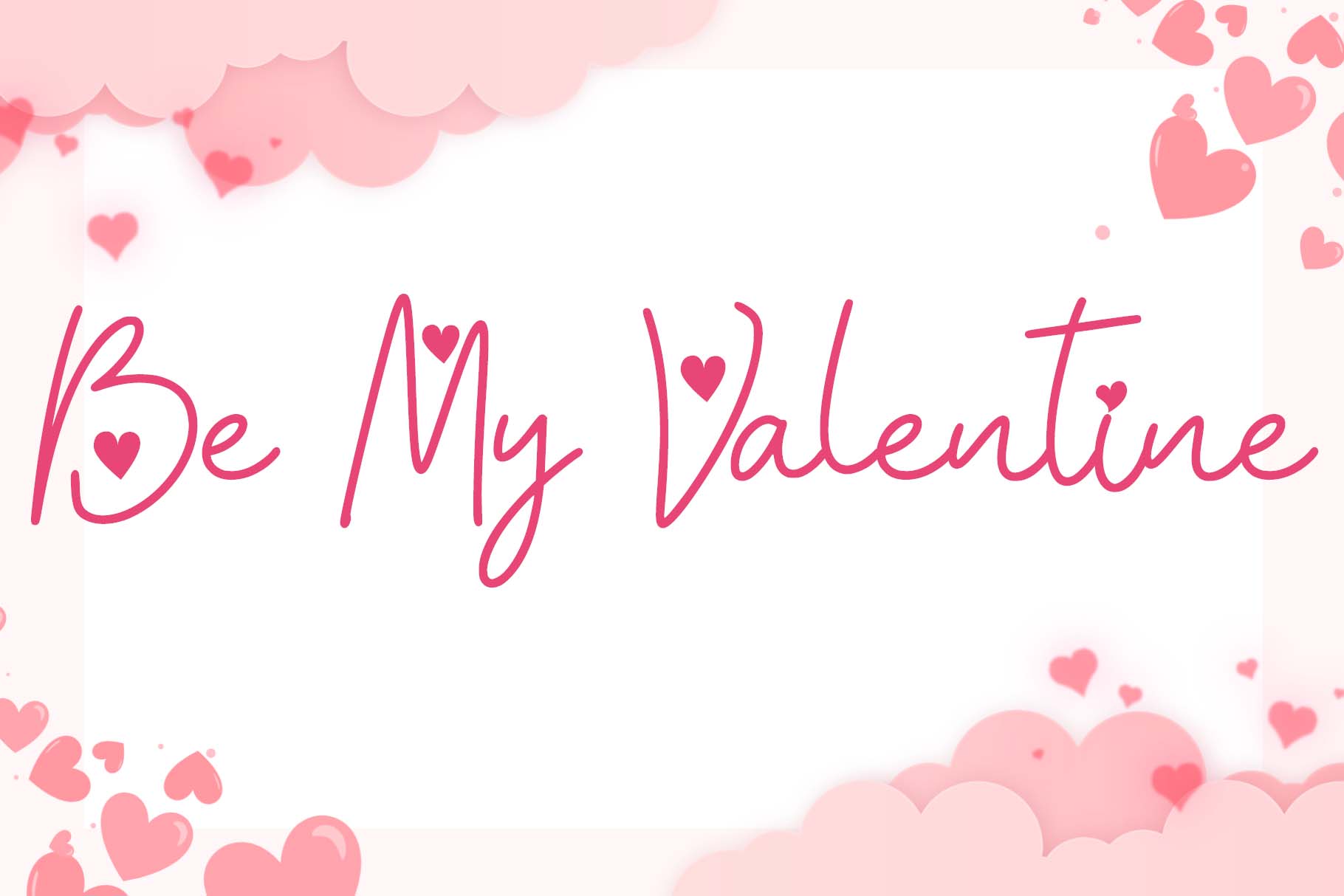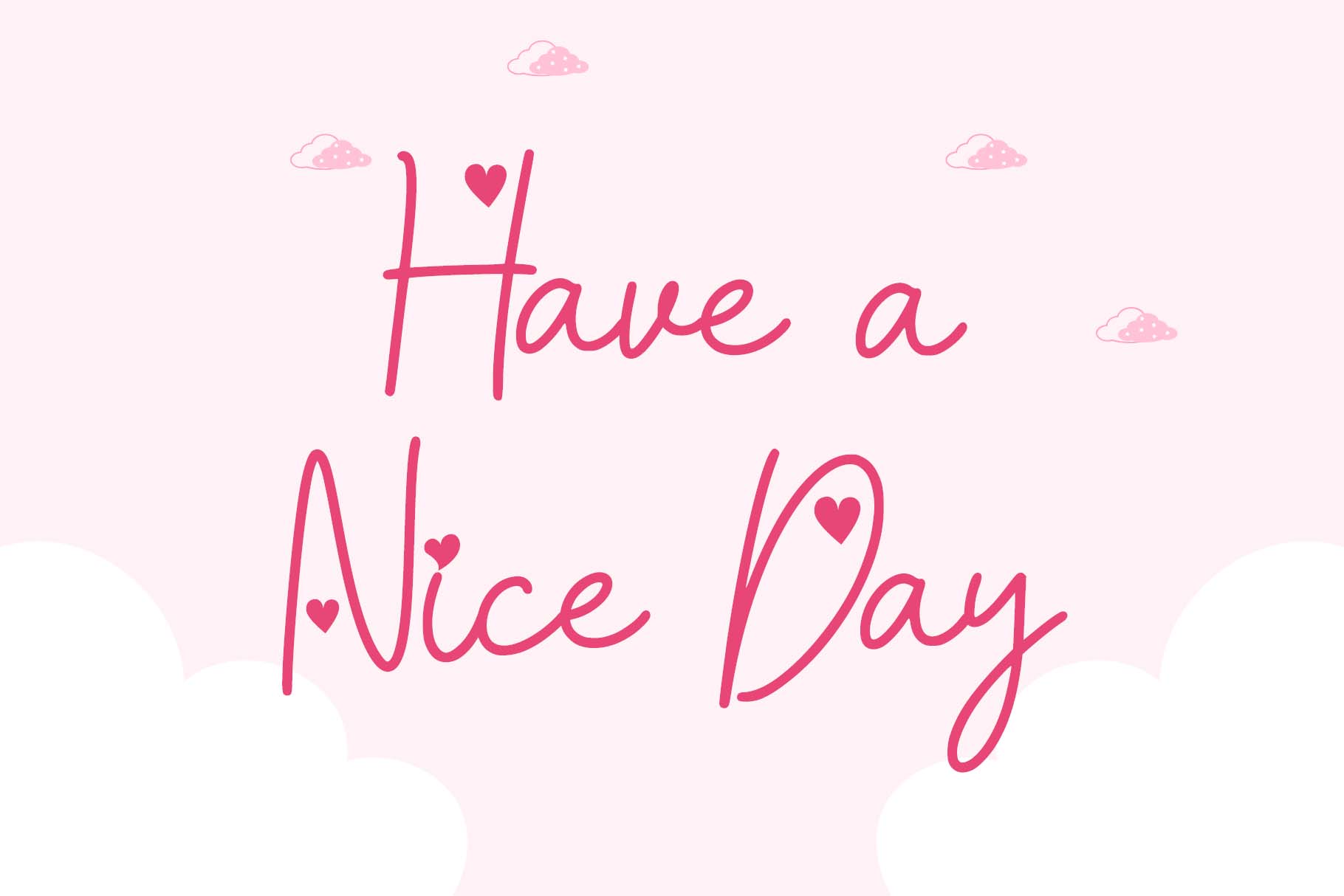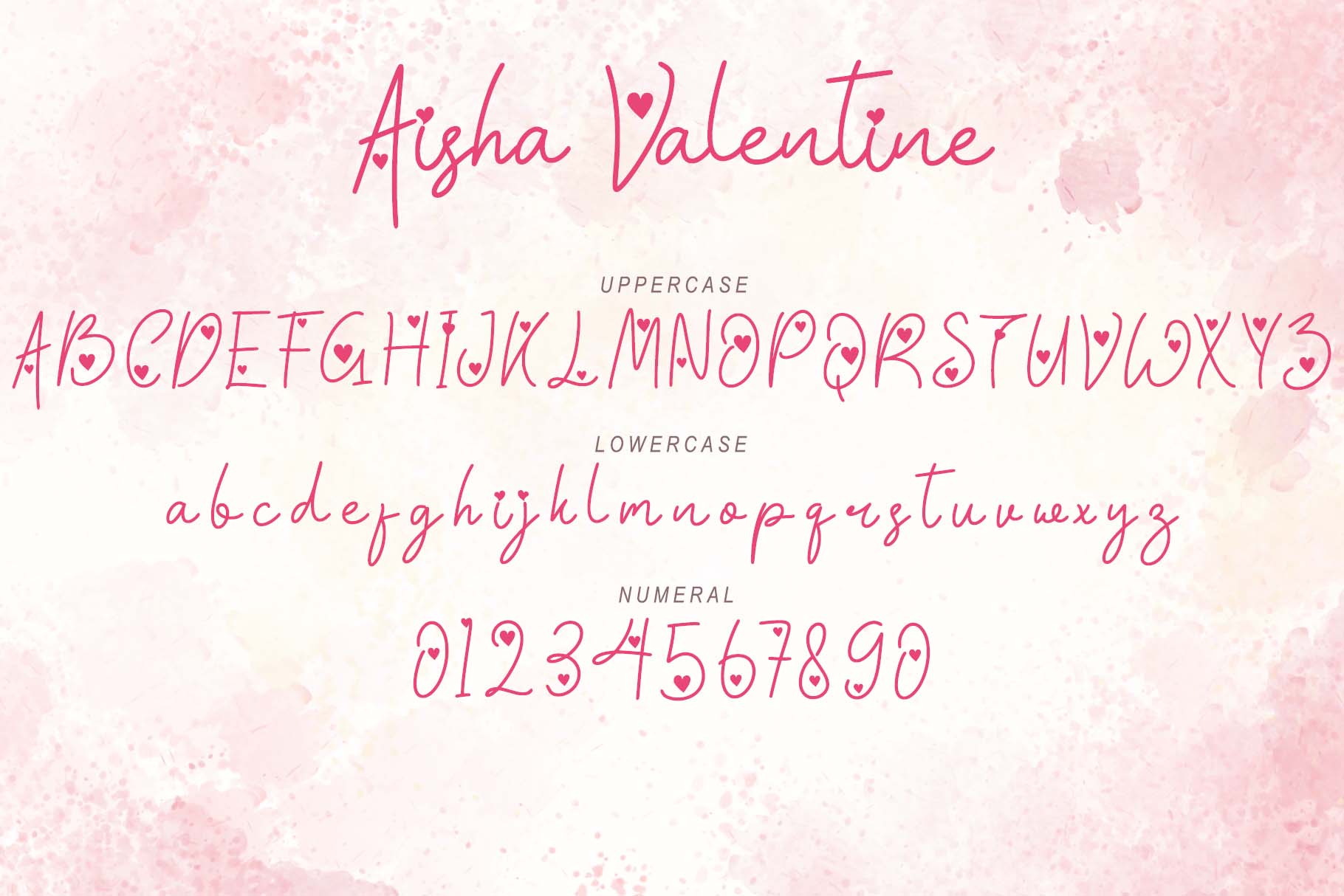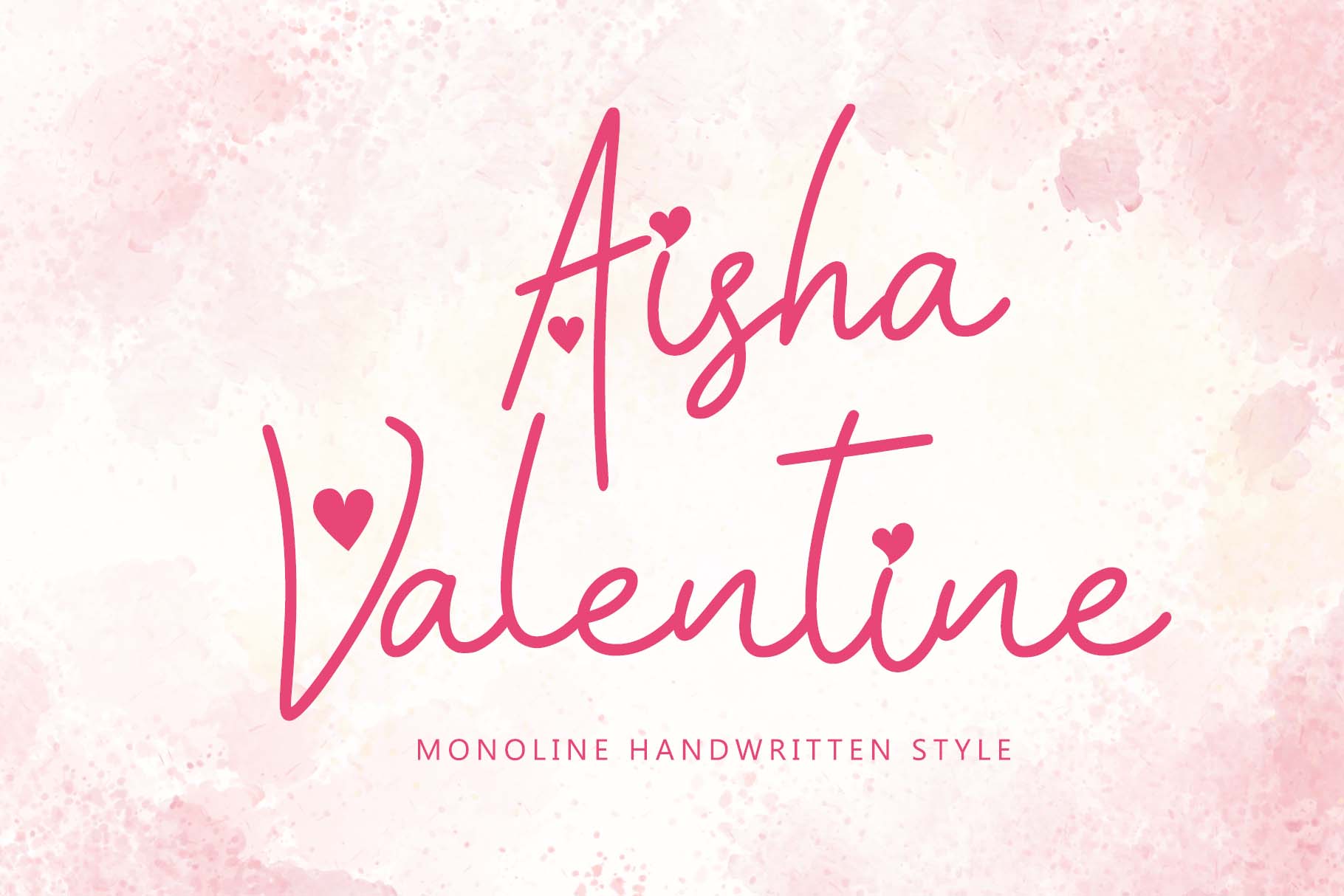
Aisha Valentine Font
Aisha Valentine is a romantic and elegant script font, exuding grace and sophistication. With its smooth, flowing strokes and delicate curves, it’s perfect for wedding invitations, love letters, branding, and special occasion designs. Aisha Valentine captures the essence of love and charm, adding a touch of timeless beauty to your projects and leaving a lasting impression with its heartfelt style.